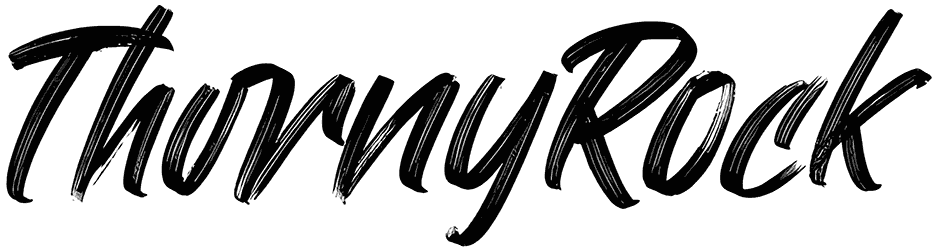
ThornyRock Font
There will be plenty of times when your text just isn’t aesthetic enough, and that’s when ThornyRock can save the day. Besides the fact that it contains no digits, you should have no limits working with this fine brush font in your different projects.
The next time you are asked to come up with a sign for an apparel boutique, summer posters, packaging design for sneakers, yoga website banners, lifestyle book titles, and more, keep this handwritten font in mind.